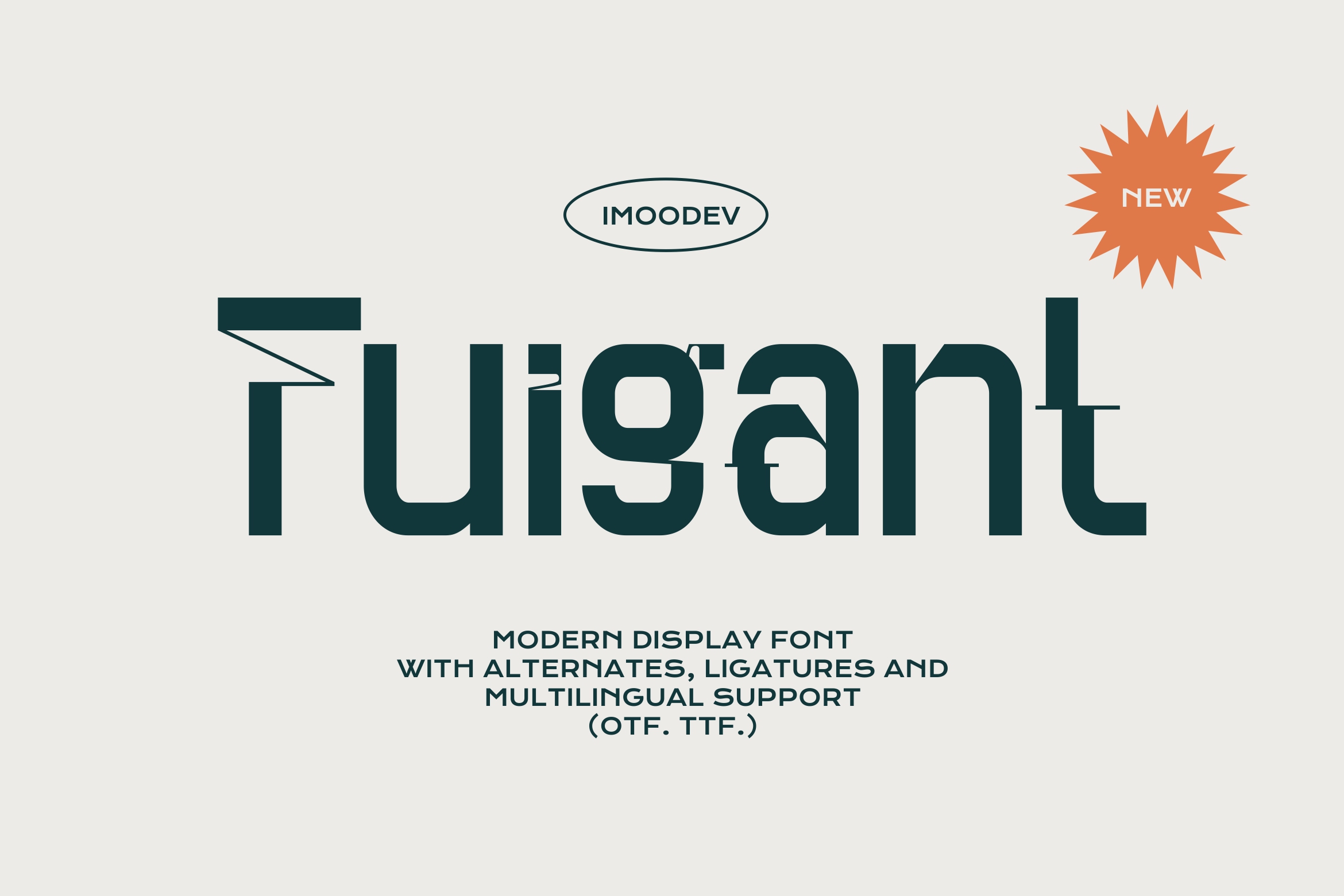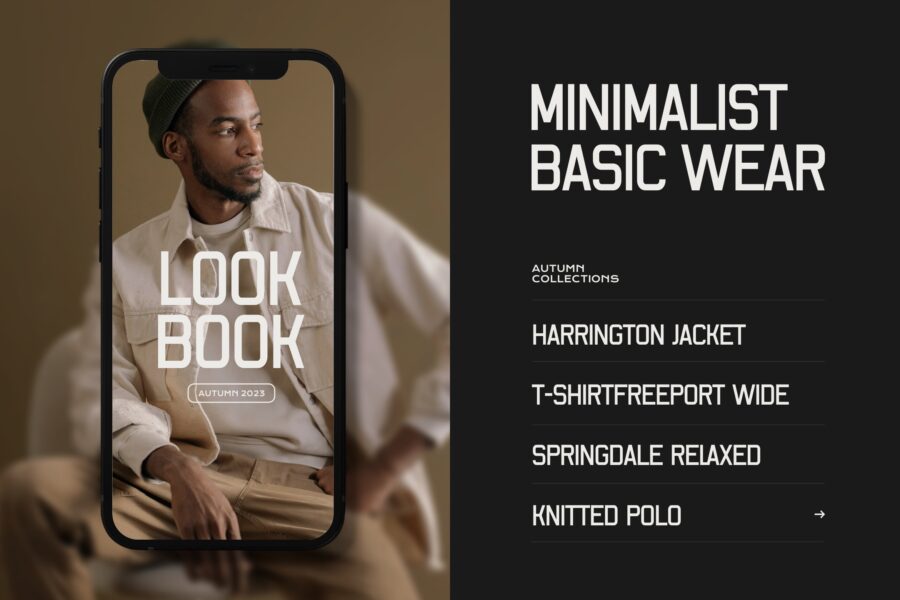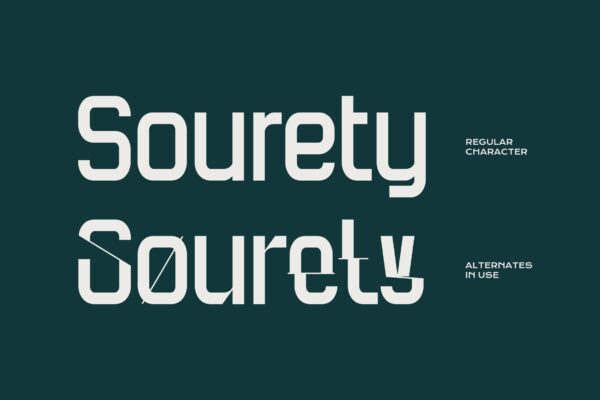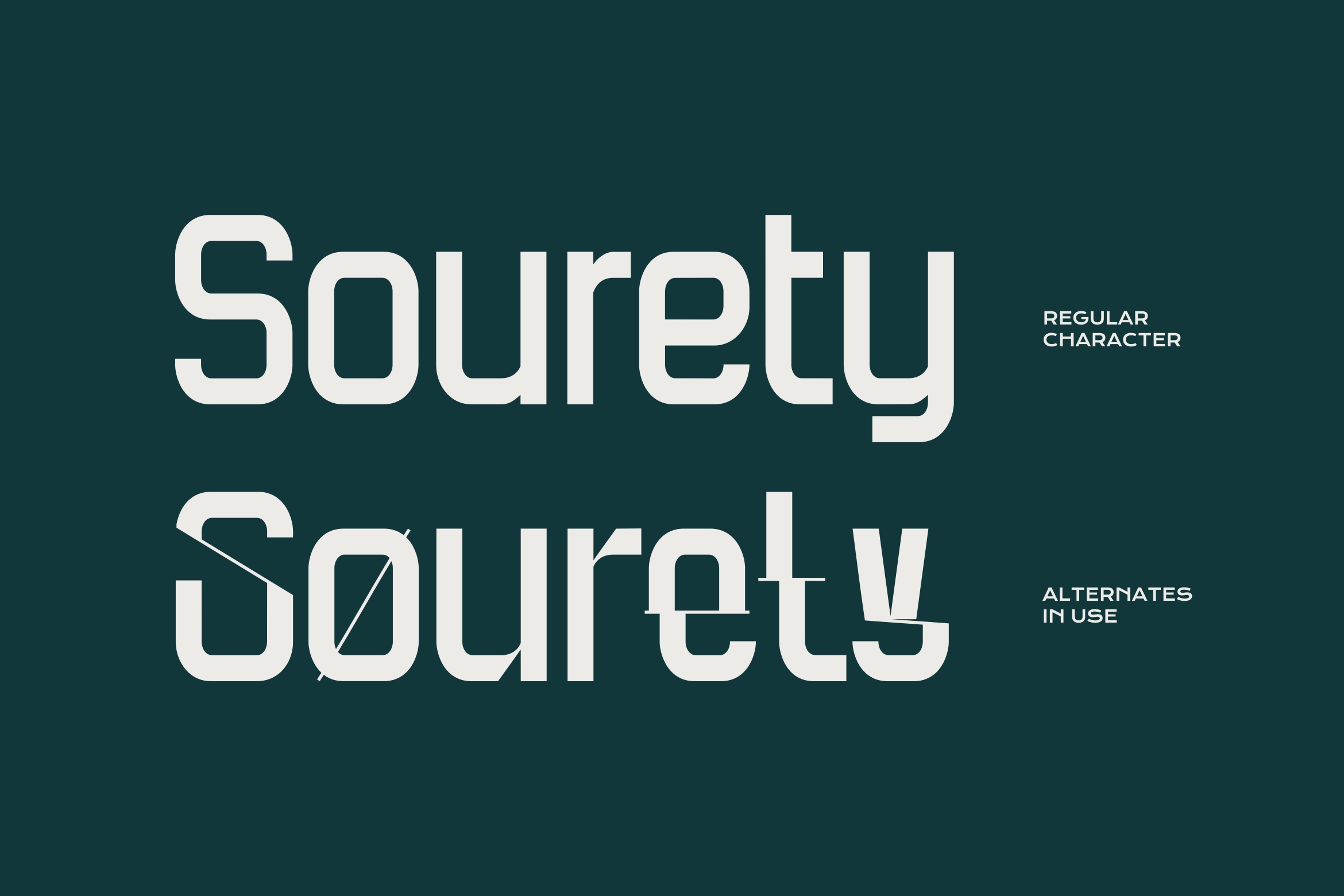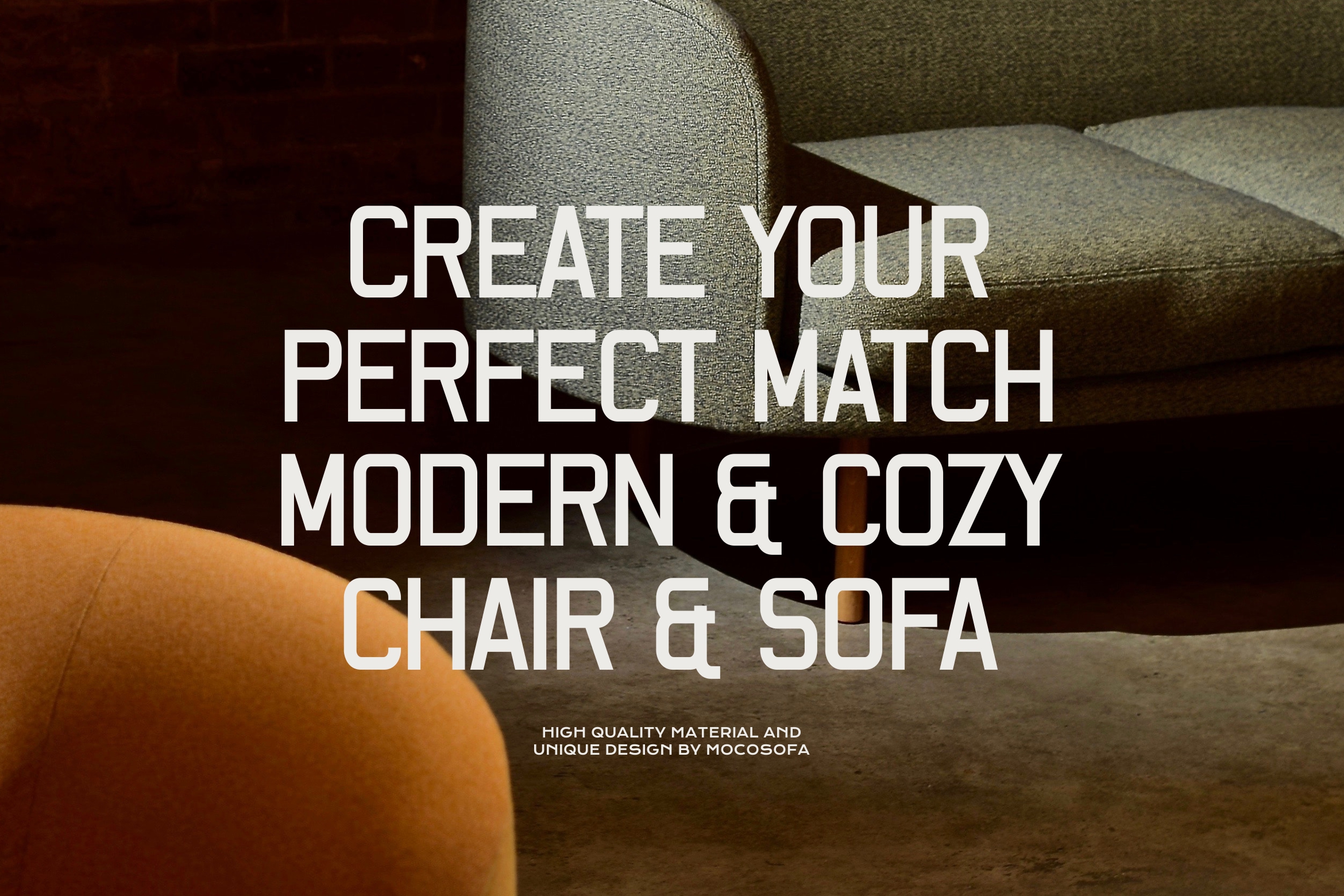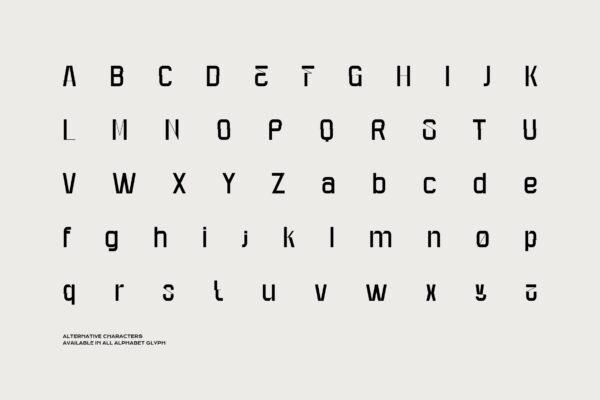
Fuigant is a modern display font that combines sleek minimalism with experimental letterforms. Designed with unique alternates and ligatures, it creates a futuristic and stylish look that works perfectly for branding, posters, fashion editorials, and digital interfaces. Its geometric structure blends sharp edges with smooth curves, offering a balance between innovation and readability. Fuigant also supports multilingual characters, making it versatile for global creative projects.
This typeface shines in both regular and alternate forms, giving designers flexibility to experiment with bold, cutting-edge compositions. Its distinctive cuts and creative details add personality, ensuring that any design project stands out with a contemporary and innovative feel. Whether used for editorial layouts, product packaging, or modern advertising, Fuigant delivers a strong visual impact while maintaining clarity and elegance.
Fuigant